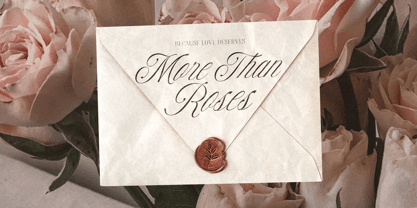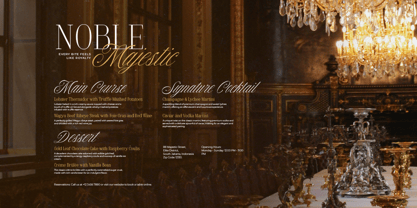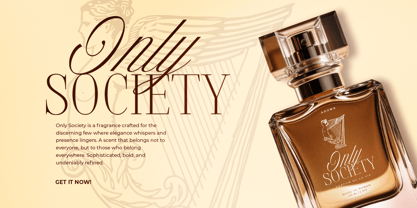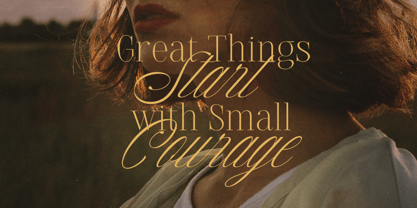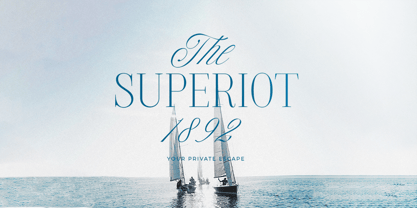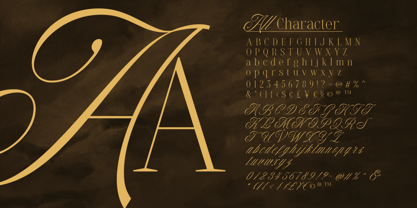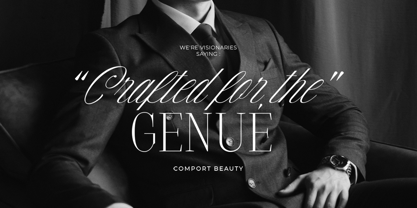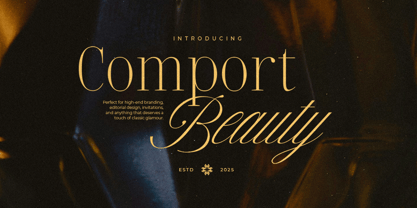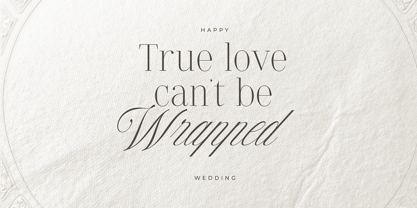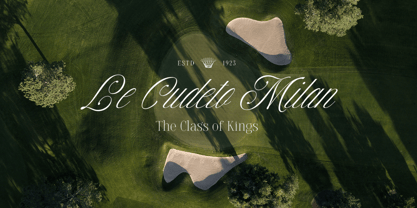
Comport Beauty
by Bale Type
The Comport Beauty Font Family was designed by Dzikrul Aulia and published by Bale Type. Comport Beauty contains 2 styles and family package options.
Comport Beauty is a romantic and classy font duo that beautifully blends the sophistication of a serif with the graceful charm of a script, together creating perfect harmony for your dream designs. Ideal for wedding invitations, branding, logos, or love-themed projects, Comport Beauty brings a sense of warmth and charm to every detail. With its versatile style and multilingual support, this duo is made to make every word feel beautiful.